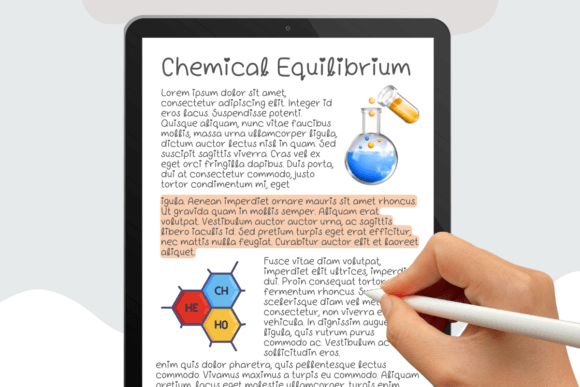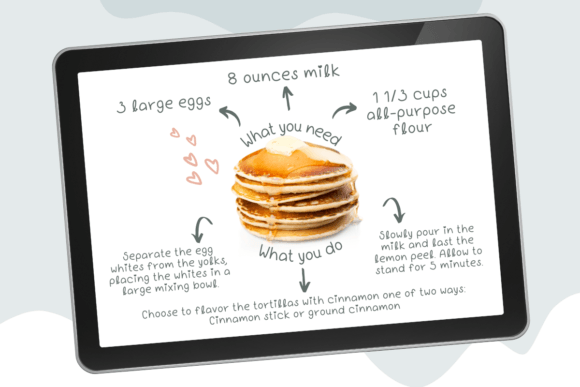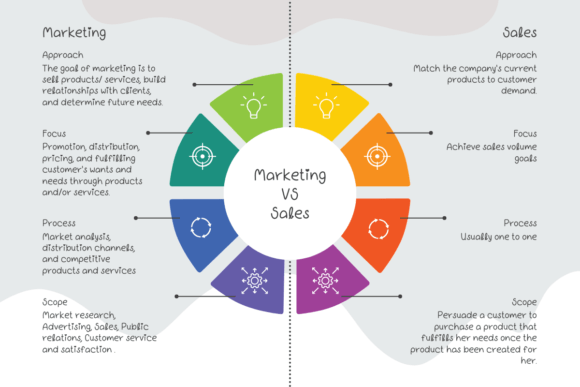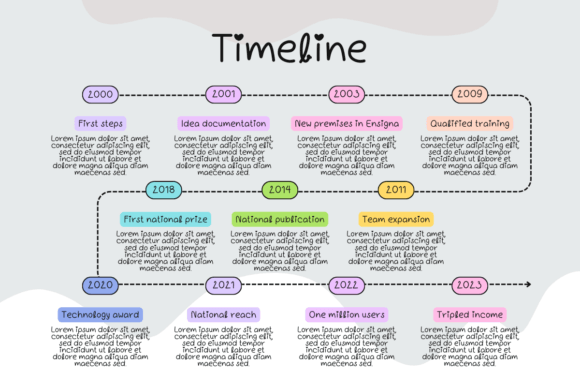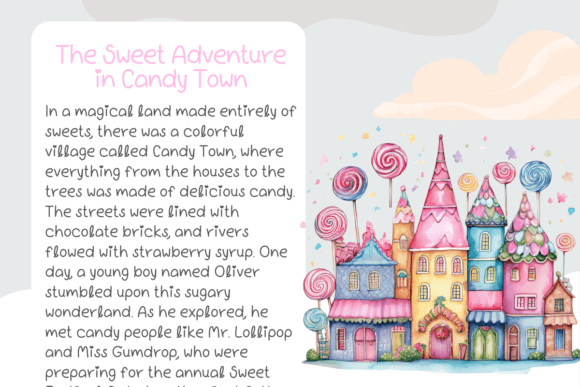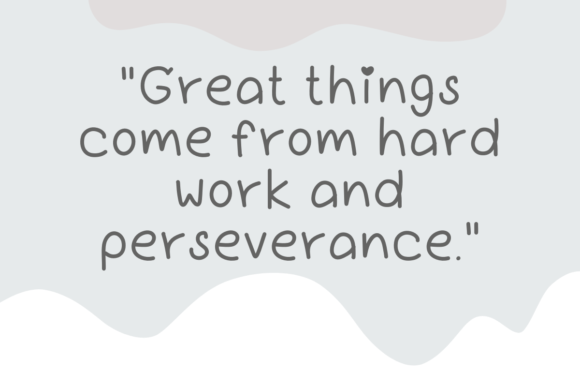
Bring Candy Font – Free Download
Introduction to Bring Candy Font
Bring Candy is a cute handwritten font, perfect for digital note-taking.
Its versatility makes it ideal for various projects such as Procreate designs, blog posts, logos, branding, digital planners, invitations, greeting cards, photo albums, and much more .
Key Features of Bring Candy Font
Why Choose Bring Candy Font?
Bring Candy Font offers exceptional quality and versatility, making it a valuable addition to your design toolkit. Whether you’re creating for personal projects or commercial use, Bring Candy Font delivers professional results.